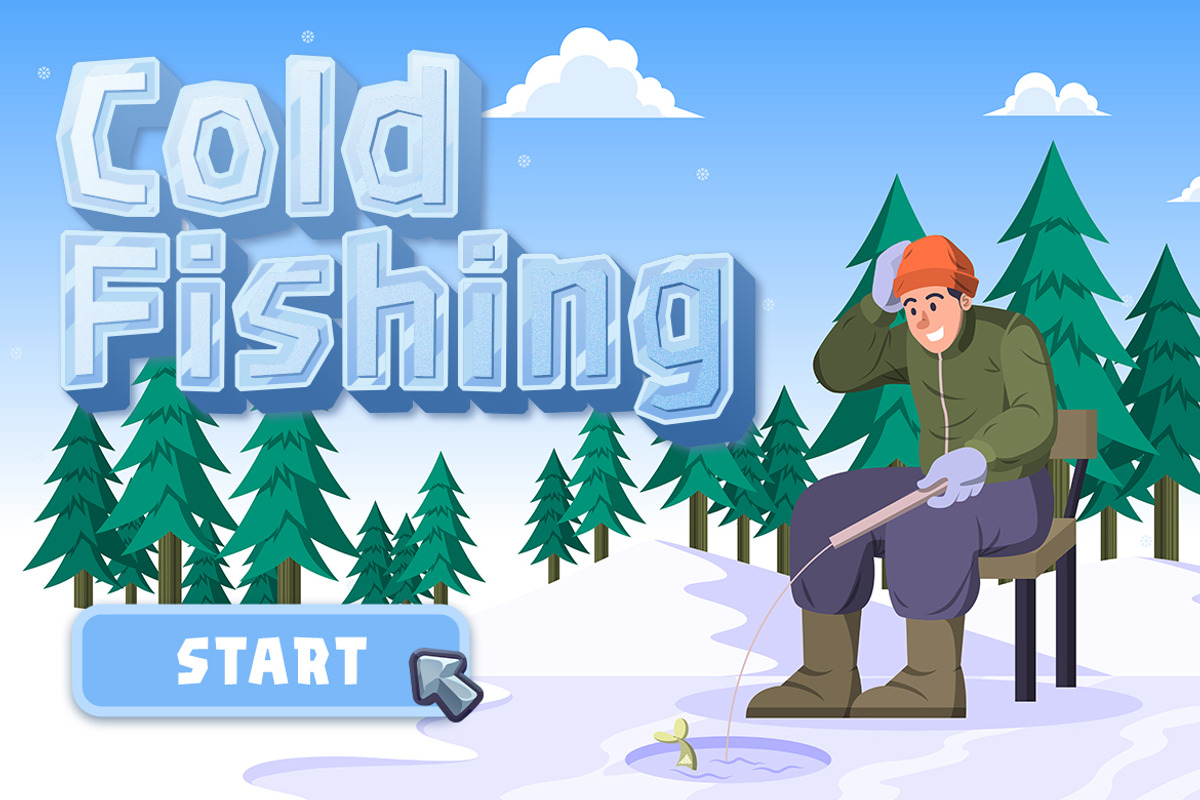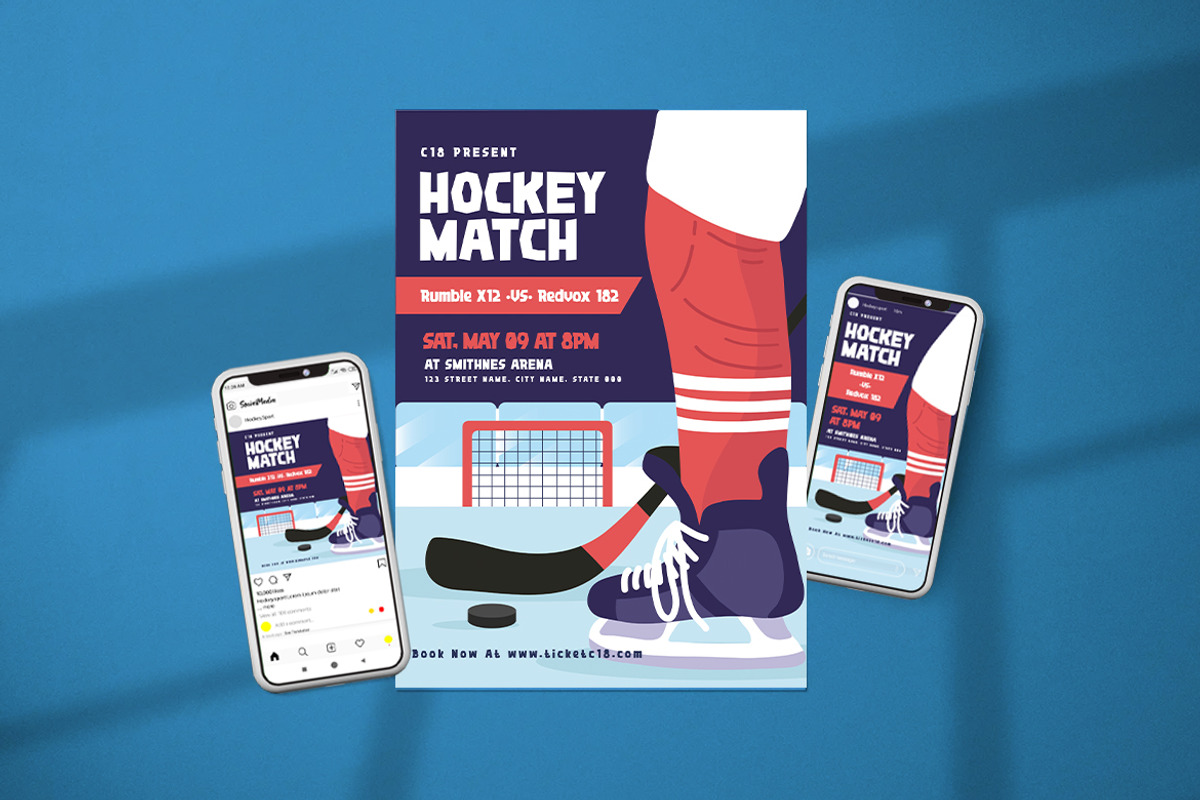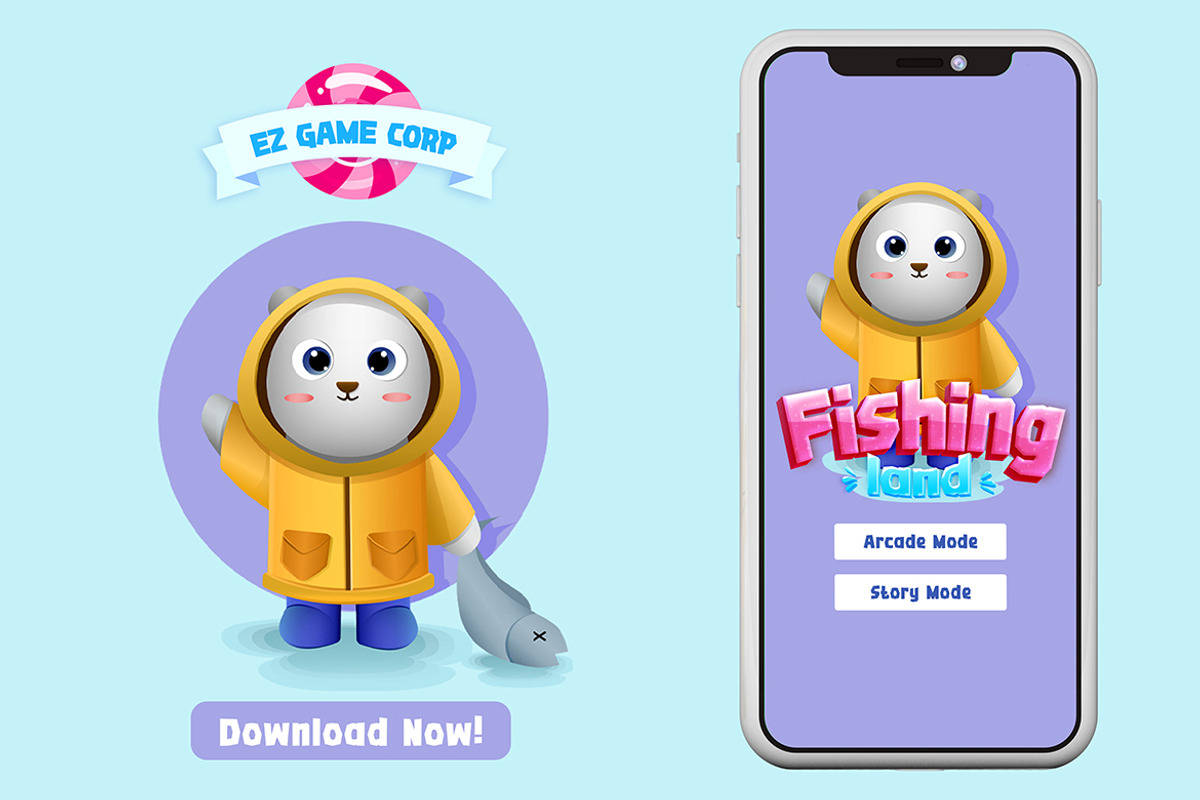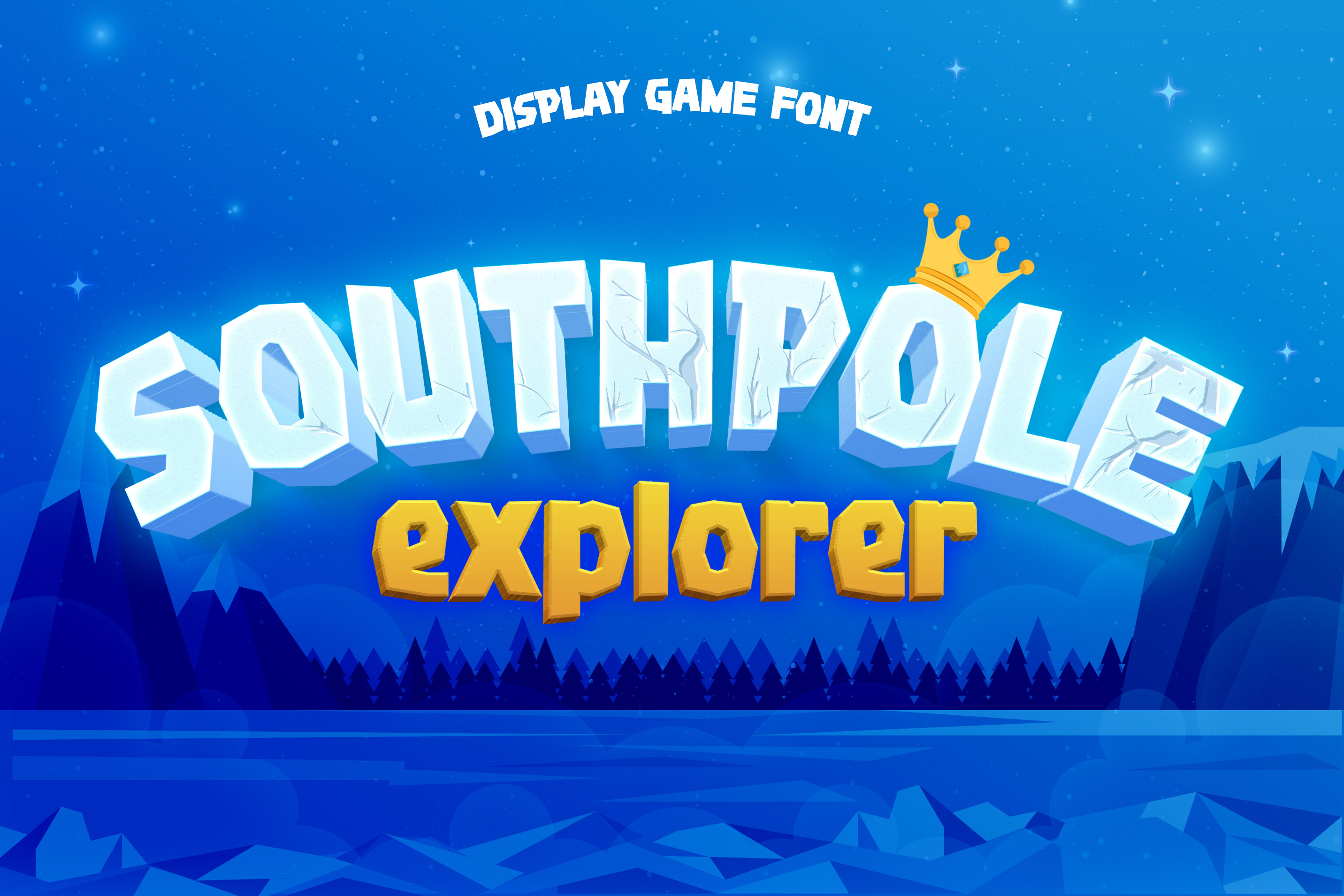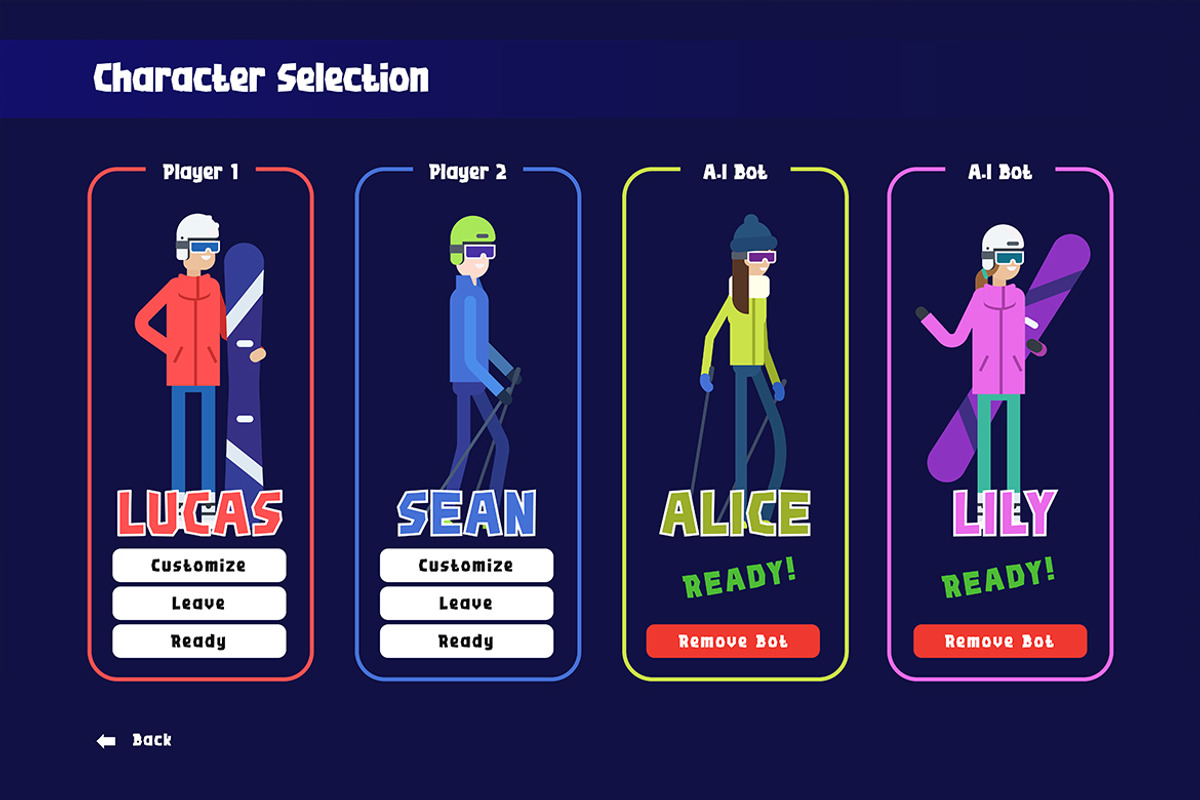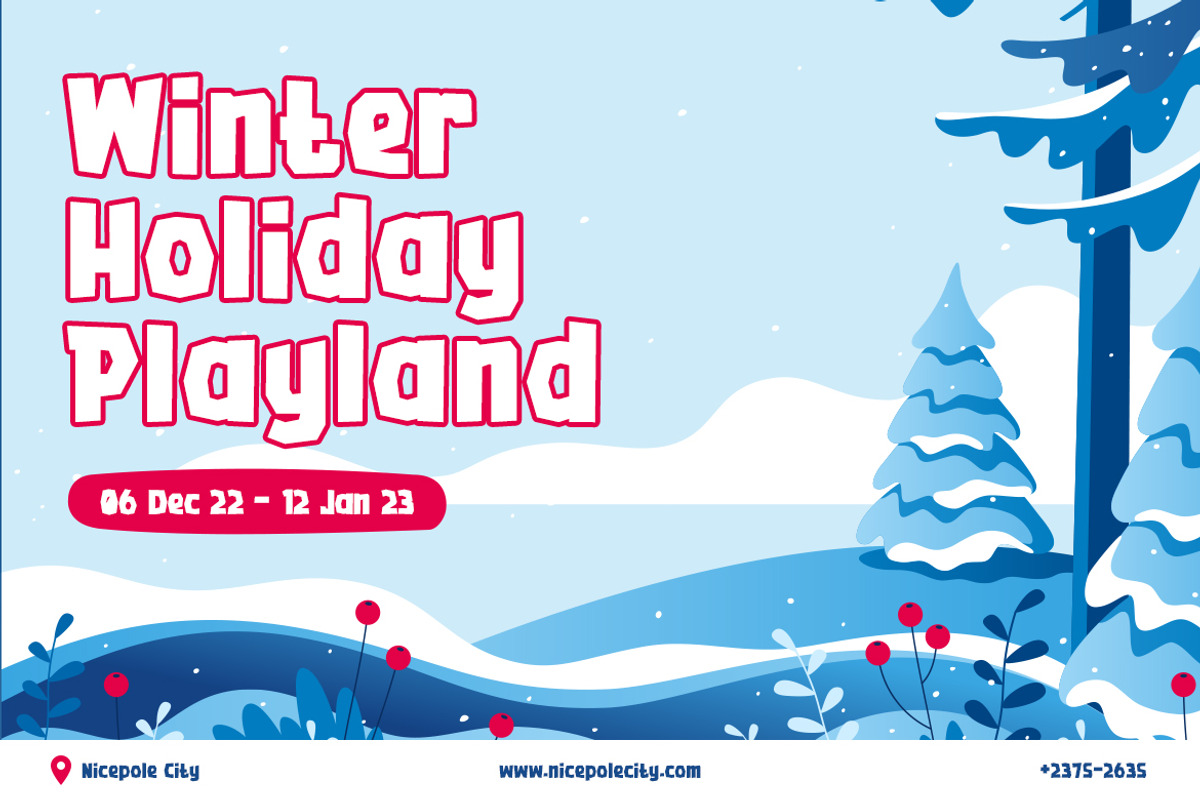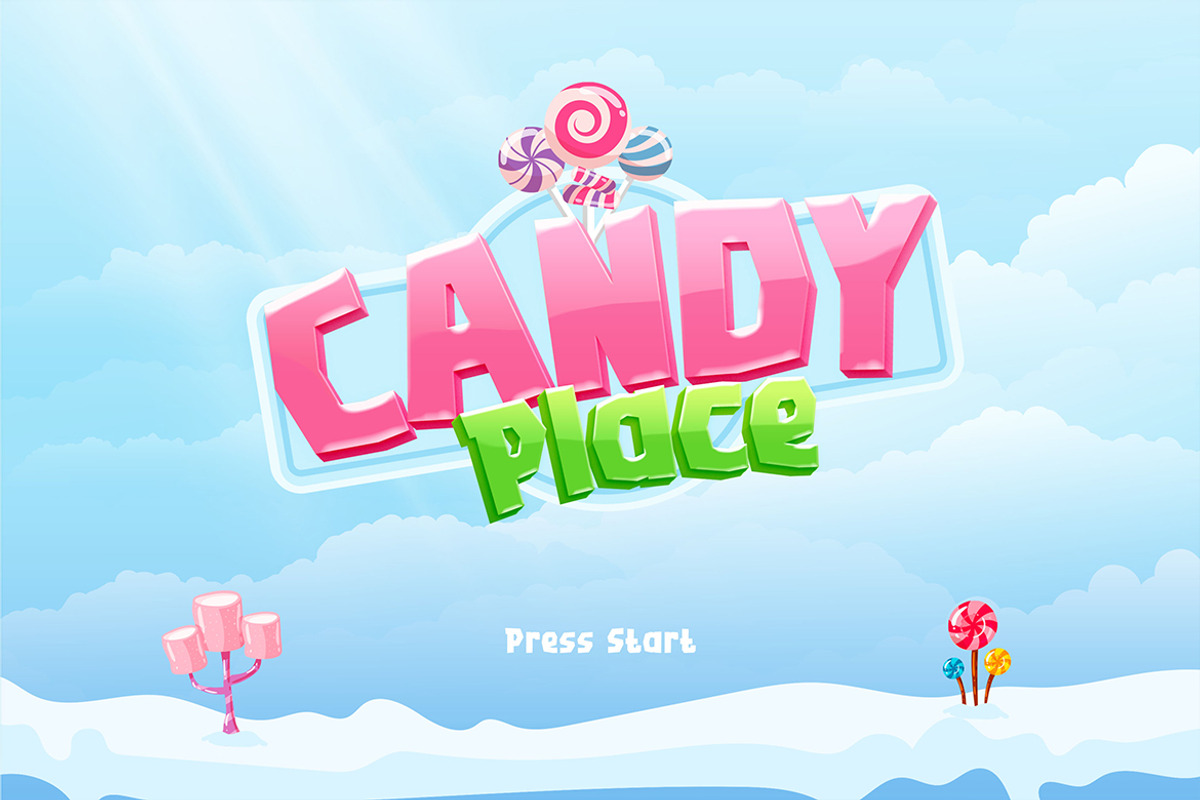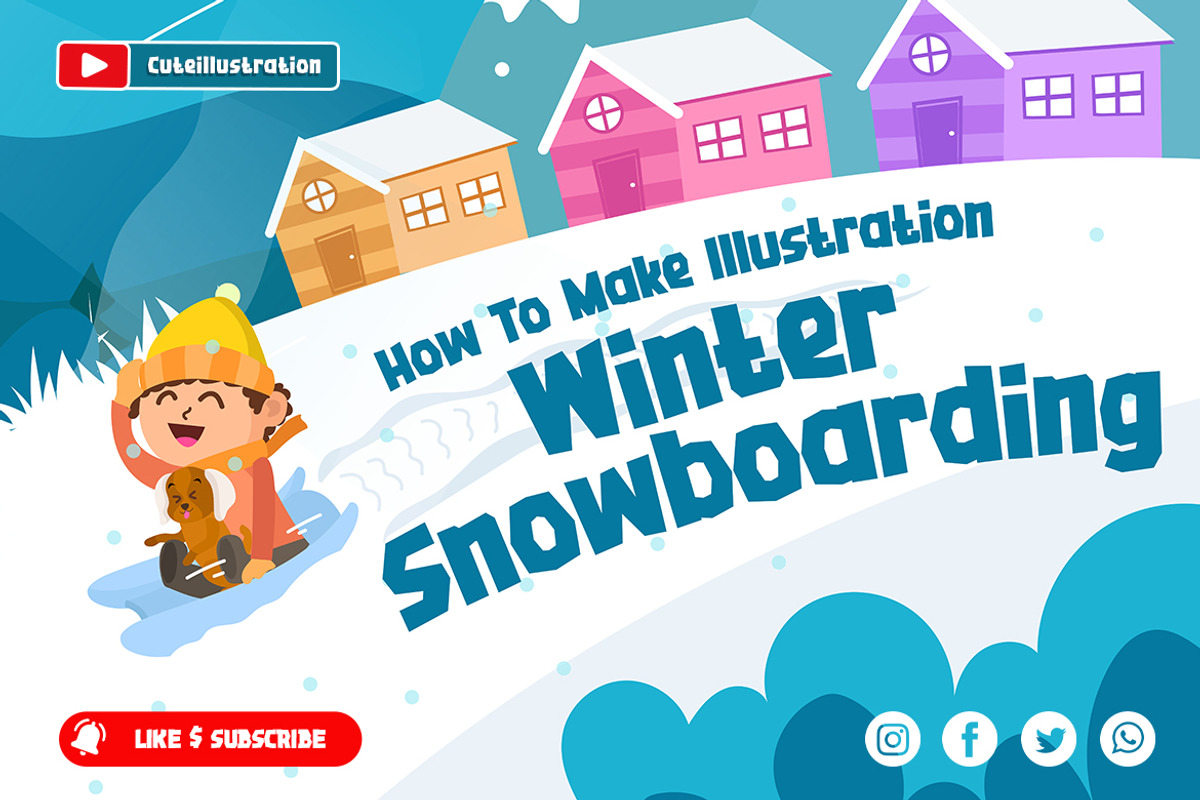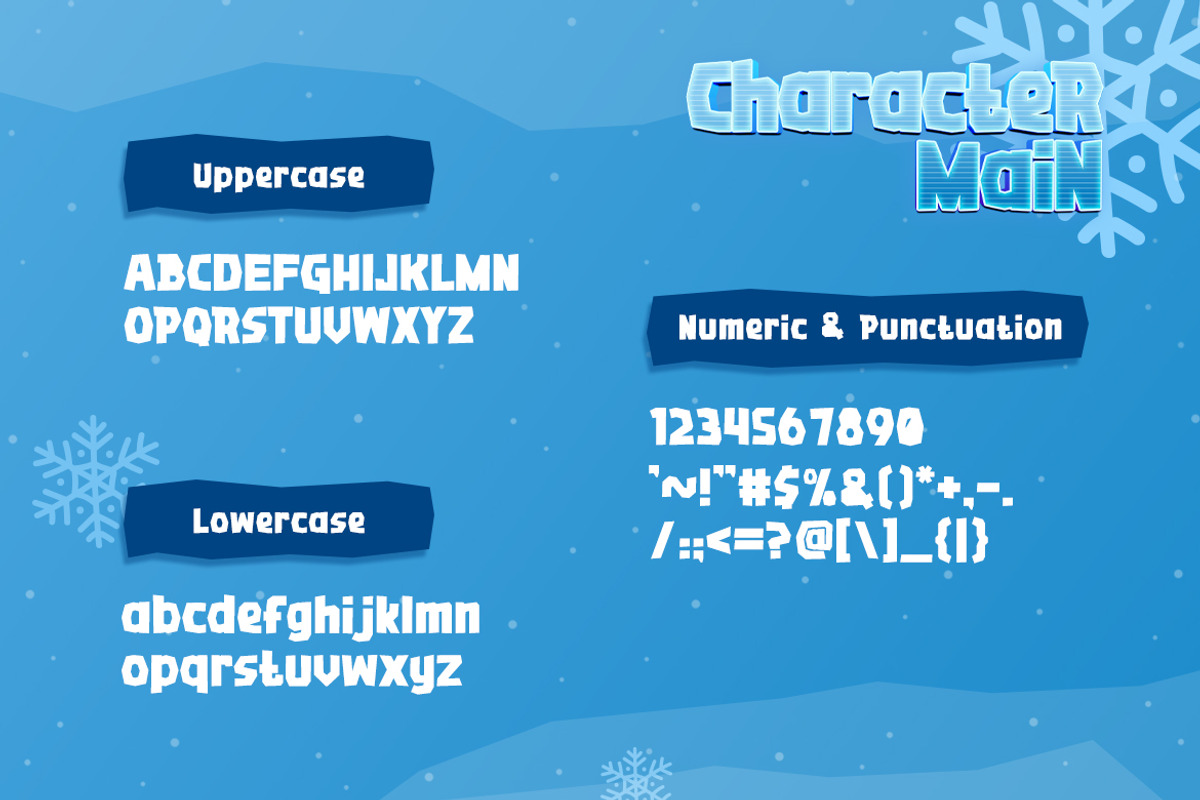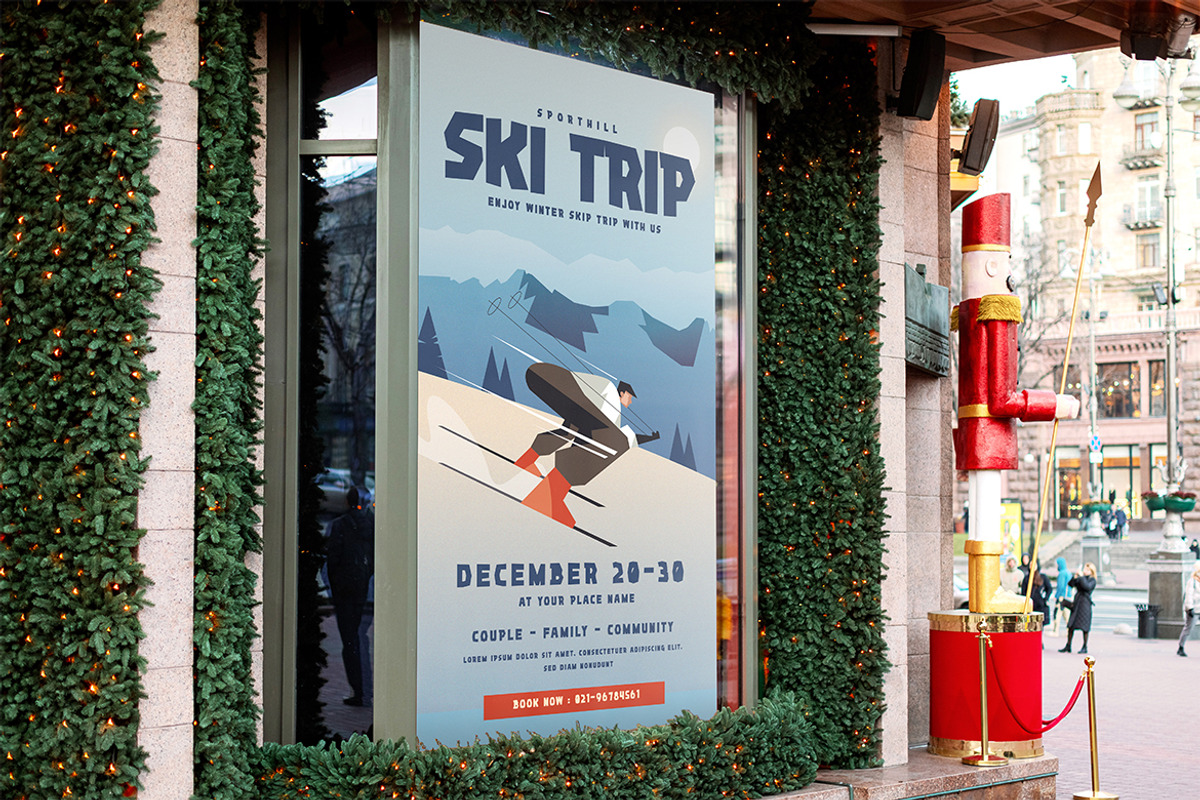
Southpole Explorer – Gaming Font
Introducing the Southpole Explorer – Gaming Font! This Cartoon Font is perfect for gamers and content creators looking for a Comic Font that’s both Cute and Funny. With its bold and playful style, this Display Font will make your content stand out and bring a touch of humor to your message.
The Southpole Explorer – Gaming Font is a versatile Girly Font that’s great for a variety of applications, from Instagram and Youtube Font to Kids Font and School Font. Its Modern Font design is perfect for creating a fun and engaging atmosphere, while its Modestype and Sans Serif Font features make it easy to read and legible on any screen.
Whether you’re creating content for movies, gaming, or social media, the Southpole Explorer – Gaming Font has you covered. Its organic and natural style of font, complete with plenty of nature foliage and floral elements, will add a touch of authenticity and personality to your message.